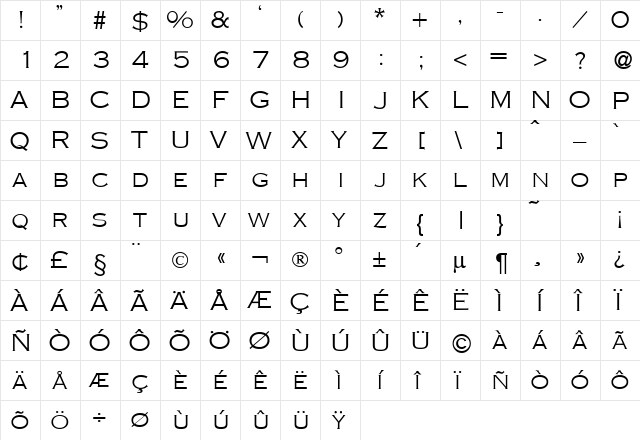
CopperLightDB Normal
Design Context for CopperLightDB Typeface
CopperLightDB takes a measured approach to typography — its balanced proportions and neutral character make it a reliable workhorse for both digital and print work. Its slender proportions lend an understated elegance to any composition.